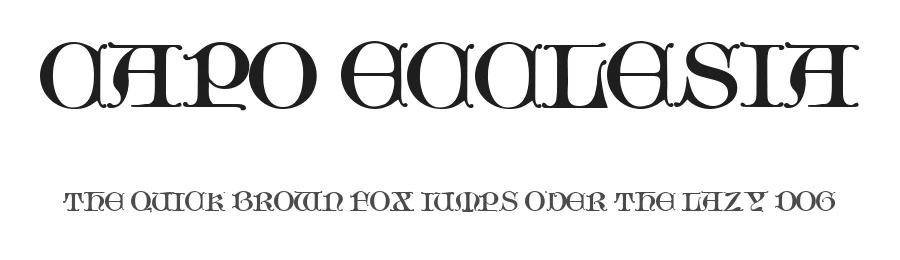
Tuce is a decorative font designed by Bumbayo Font Fabrik. It includes 112 glyphs, a regular weight, OTF (CFF) format, and 104 languages. Tuce is free to download; check the license details on this page before commercial use. Decorative fonts like Tuce work best for logos, posters, packaging, and standout headlines.
Tuce Font is a decorative font that shines as a display or heading face. Pair it with a clean sans-serif or serif font for body text β the contrast creates a clear hierarchy while the two styles stay balanced and easy to read.